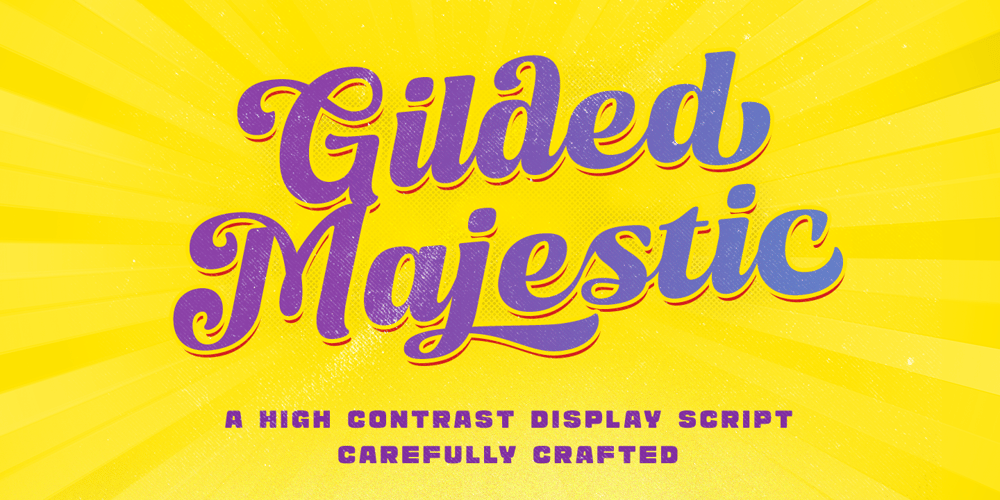
Gilded Majestic
Gilded Majestic font
Gilded Majestic Font Family was designed by Hendry Juanda and published by Letterhend. Gilded Majestic contains 1 styles and family package options. Introducing, Gilded Majestic- a high contrast bold script with a touch of quirky looks. This type of font perfectly made to be applied especially in logo, headline, signage and the other various formal forms such as invitations, labels, logos, magazines, books, greeting / wedding cards, packaging, fashion, make up, stationery, novels, labels or any type of advertising purpose.Features : Uppercase & lowercase Numbers and punctuation Alternates & Ligatures Multilingual PUA encoded